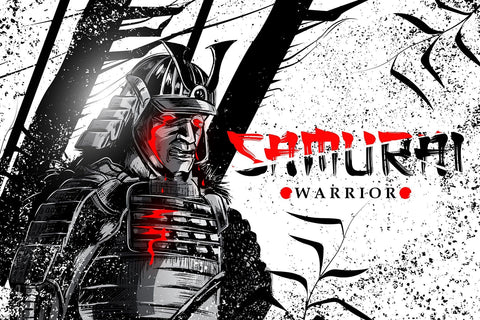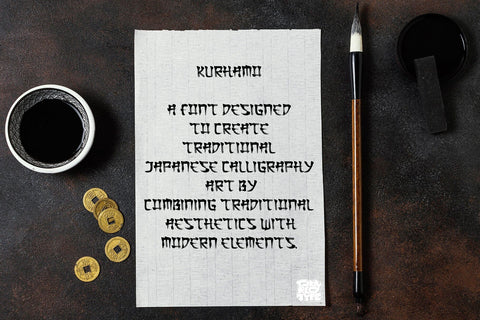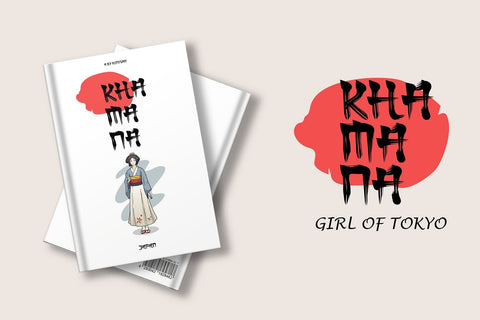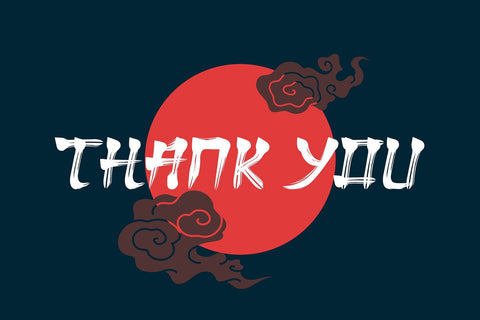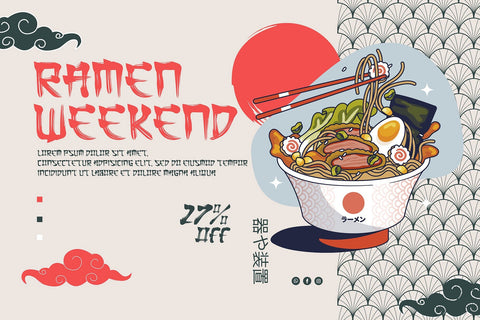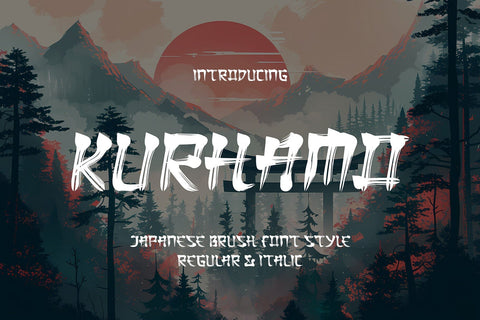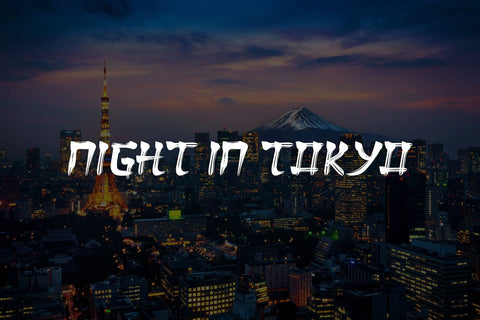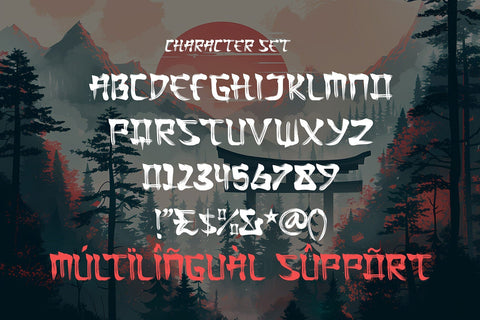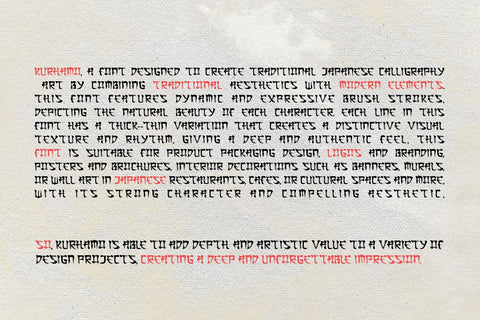
Kurhamo - Japanese Brush Font
Kurhamo is a brush script font with a distinctive Japanese style. Its flowing, hand-drawn characters evoke the elegance and tradition of Japanese calligraphy, making it an excellent choice for projects that aim to incorporate an Eastern aesthetic. Ideal for branding, logos, posters, and any design requiring a touch of cultural flair, Kurhamo adds a unique and authentic look to your creative work.
- Realistic Japanese Brush